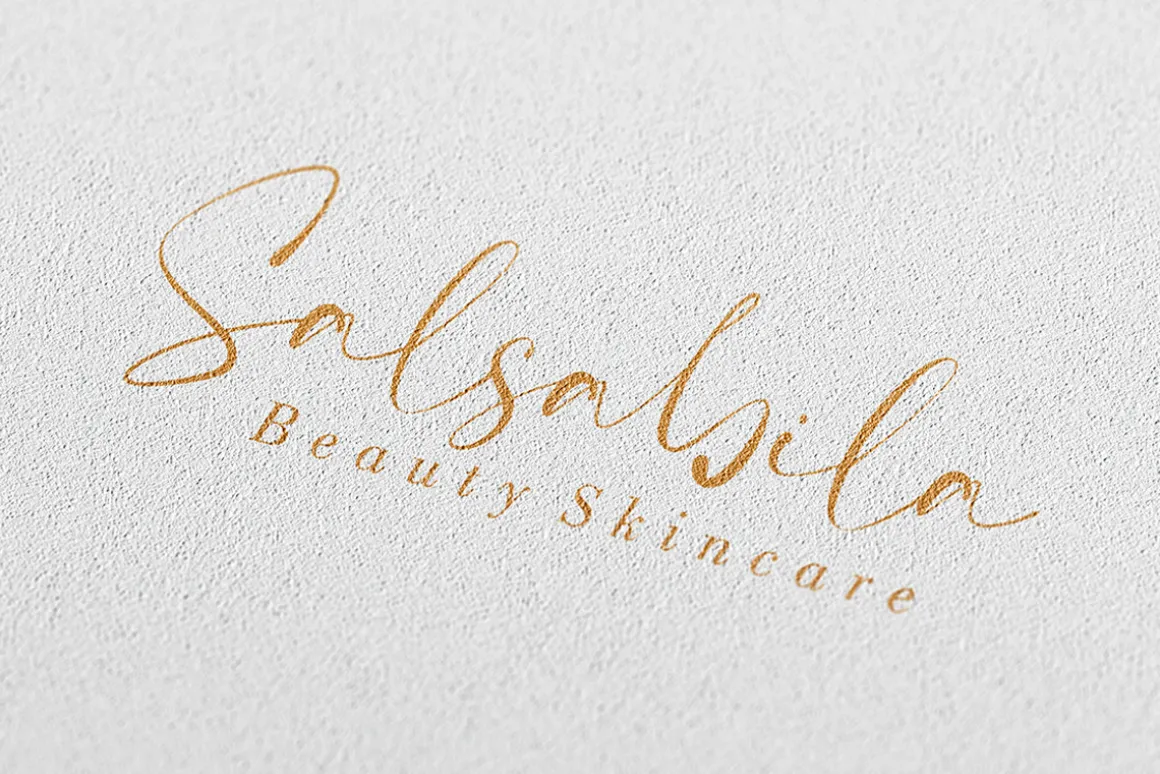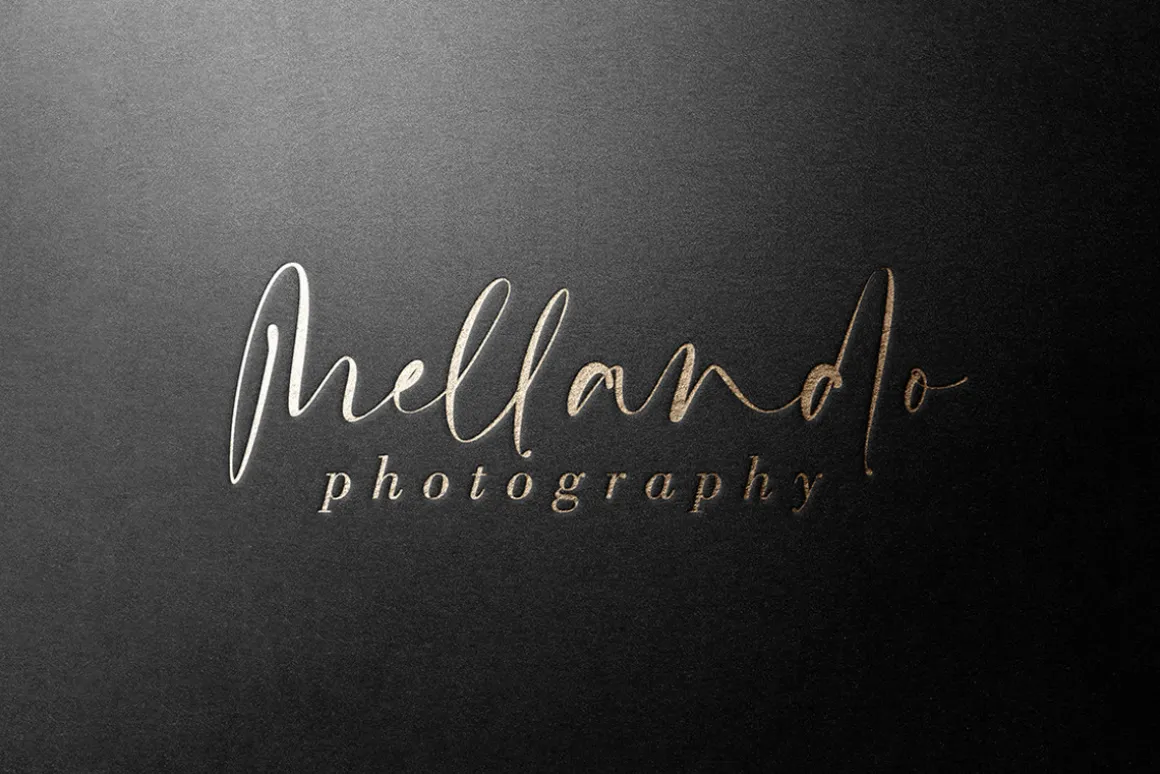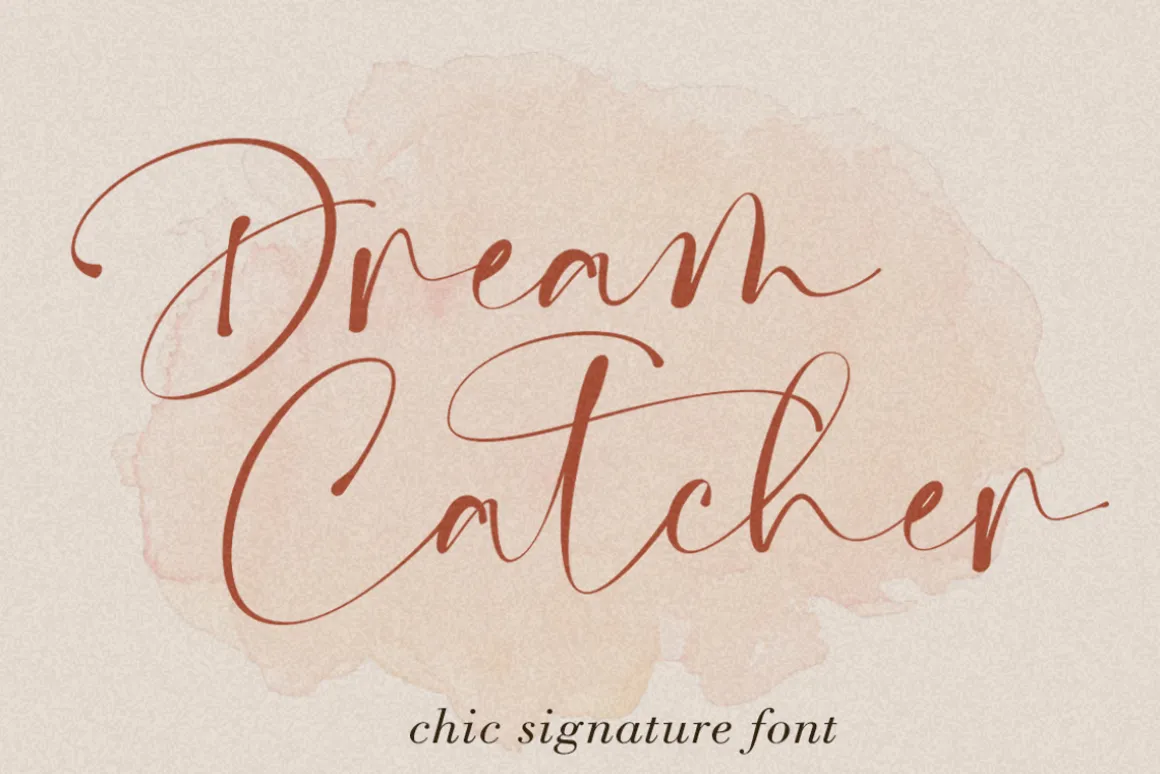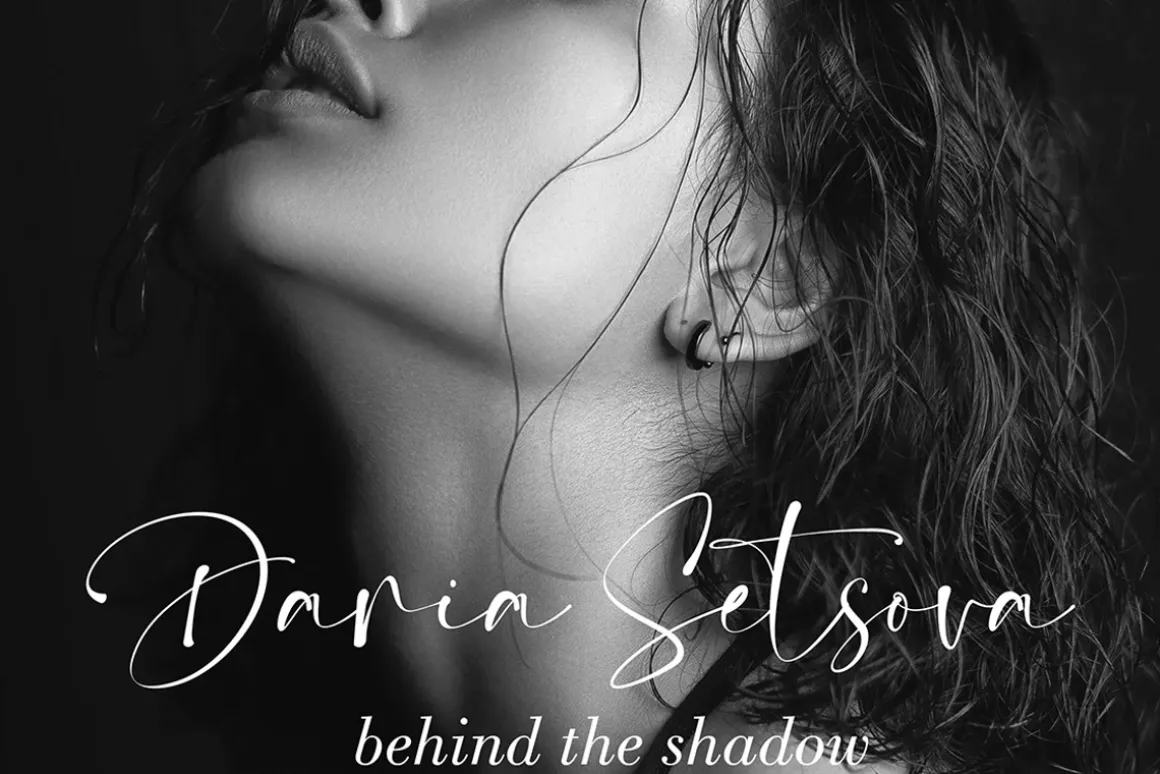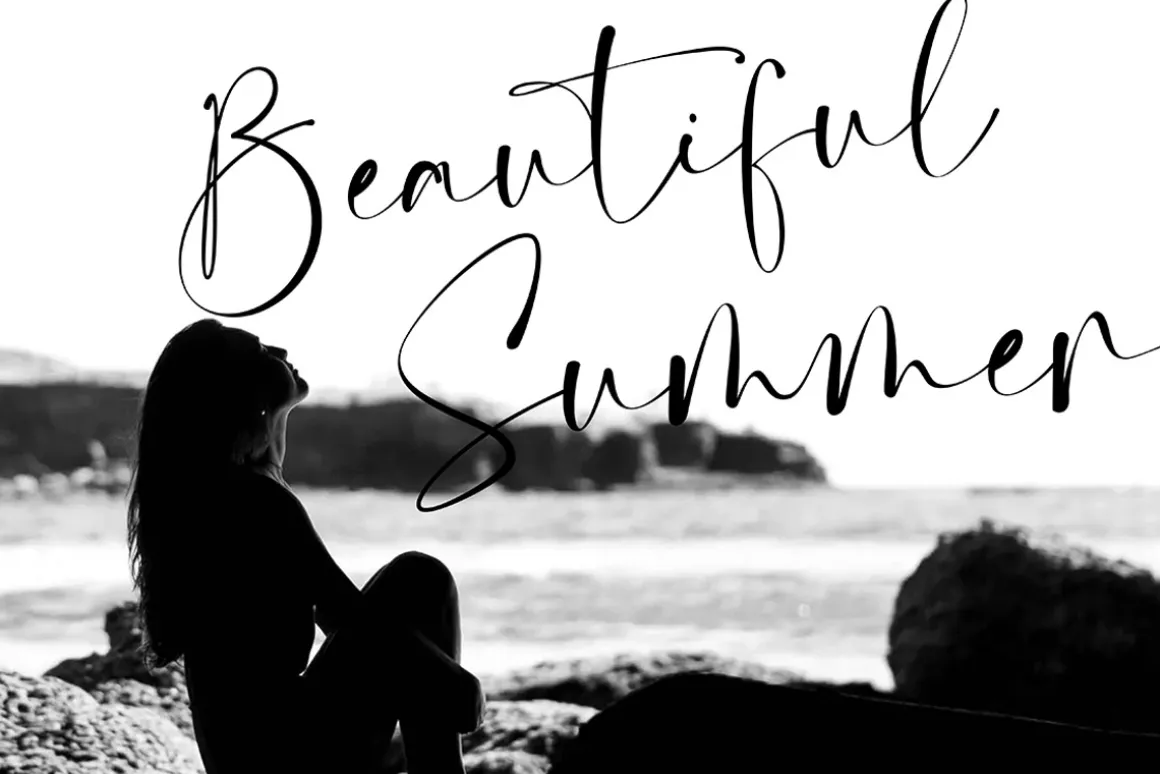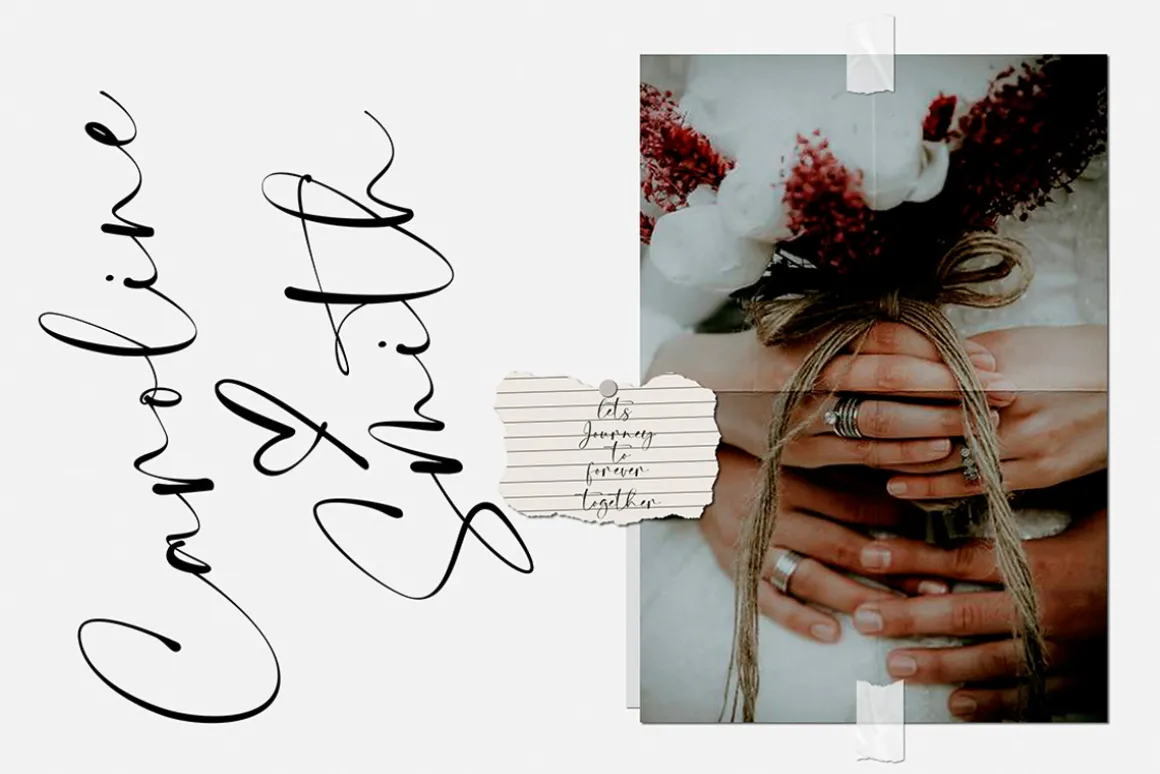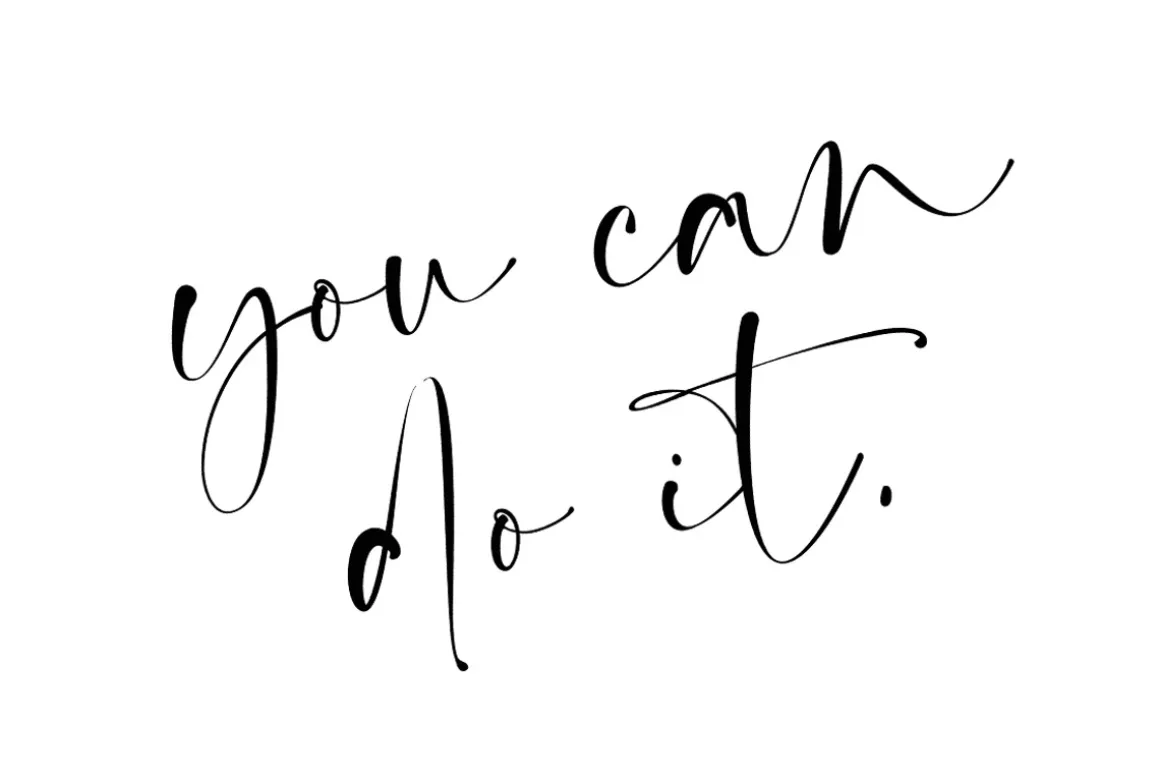
Dream Chatcher is a modern chic Signature Font with magical pressure.
I hope this font perfect for creating signature logos and watermarks for photography studio or wedding invitation,best for initial or branding logo signature .
Dream Catcher includes full set of beautifull hand lettered uppercase and lowercase letters, numerals, a large range of punctuation and ligatures giving realistic hand-lettered style. What you get, darling?